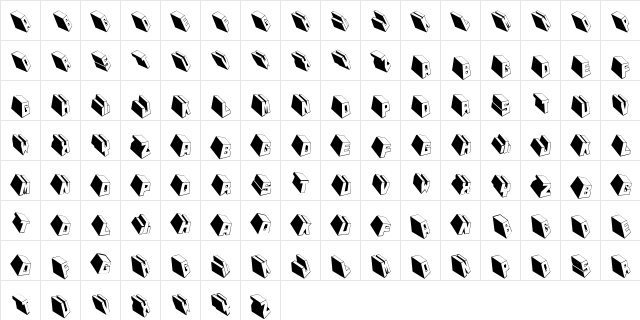
MKTypobricksRough Regular Font Preview
MKTypobricksRough Regular
Design Context for MKTypobricksRough Typeface
MKTypobricksRough embraces imperfection — its rough, textured character adds raw authenticity to designs that want to feel lived-in and unconventional.
A strong fit for alternative music projects, graffiti-adjacent design, and anything that deliberately resists polish.
Pro Tip: Use MKTypobricksRough at larger sizes where the texture and irregularity of each letterform can be clearly seen — it loses its character at small sizes.